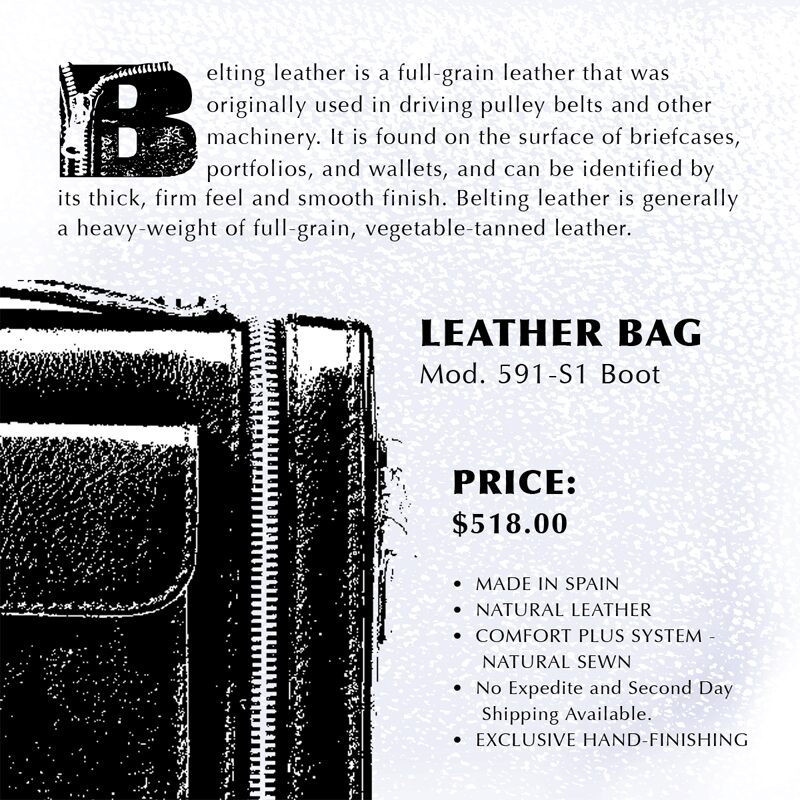
Leather is a free eroded decorative display font built around hefty capitals filled with distressed clothing details. Zippers, seams, buckles, and patterned fabric turn each letter into a compact collage. The silhouettes stay blunt and imposing.
Fashion and streetwear themes make it apt for apparel branding, club posters, and music merchandise. Its garment motifs can extend into editorial illustrations about clothing culture, letting the lettering function as part of the pictured material rather than as a separate caption.
Steve Cloutier